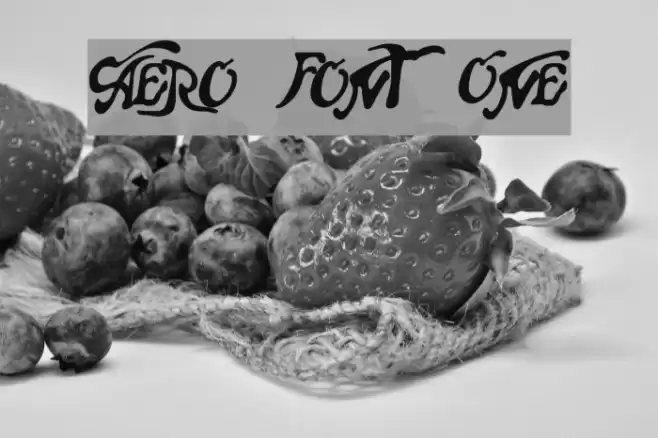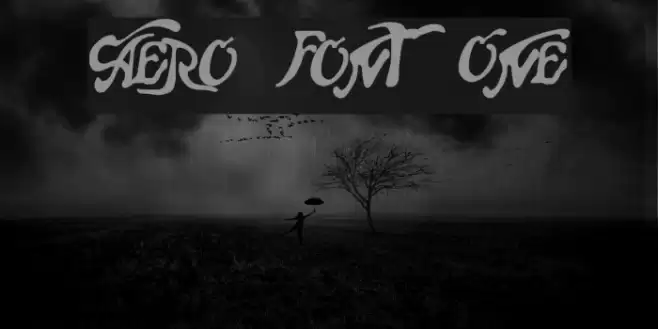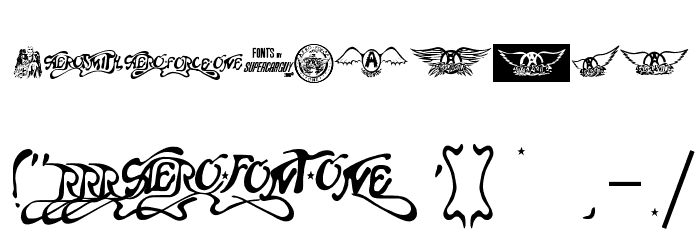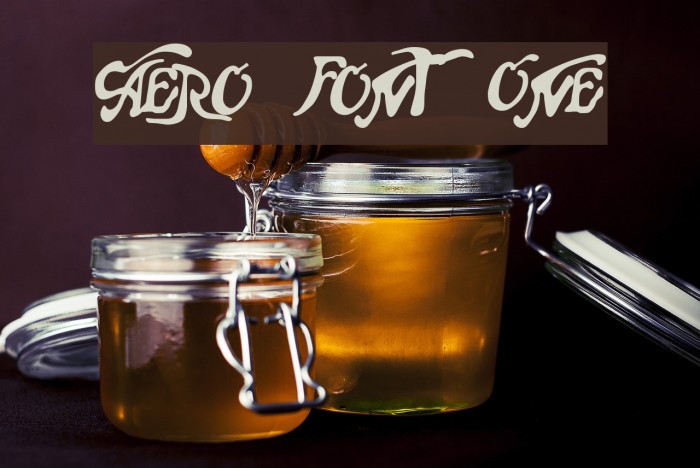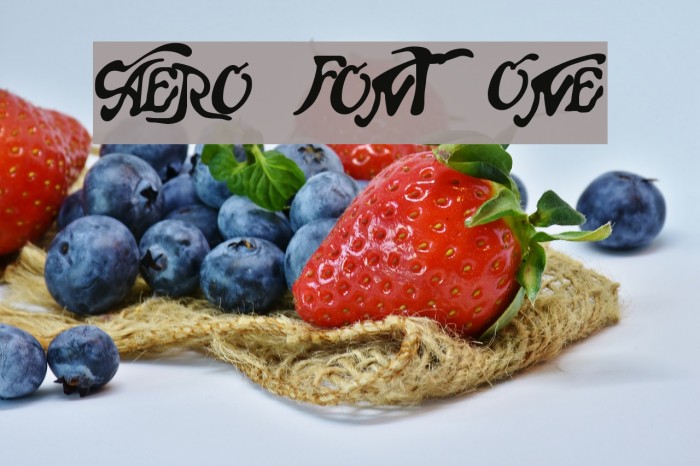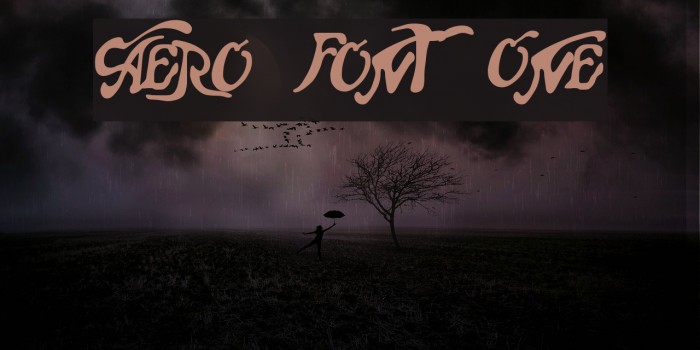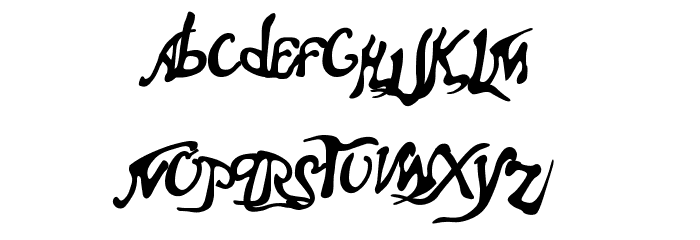
Aero Font One Font
Aero Font One Description
This font features an intricate and artistic design, characterized by its flowing and elaborate script style. The letters are highly stylized with exaggerated curves and flourishes, giving it a unique and decorative appearance. The uppercase and lowercase letters maintain a consistent theme of elegance and complexity, making it suitable for creative and expressive projects. The numbers and special characters are equally ornate, ensuring a cohesive look across all elements. This font is ideal for projects that require a touch of sophistication and artistic flair.
An intricate and decorative script font with flowing, elaborate designs from Crazy fonts.
- Proposed Projects: Ideal for tattoo designs, album covers, artistic posters, and branding that requires a unique and expressive style.
- Use Case: Logos, Artistic projects, Headlines